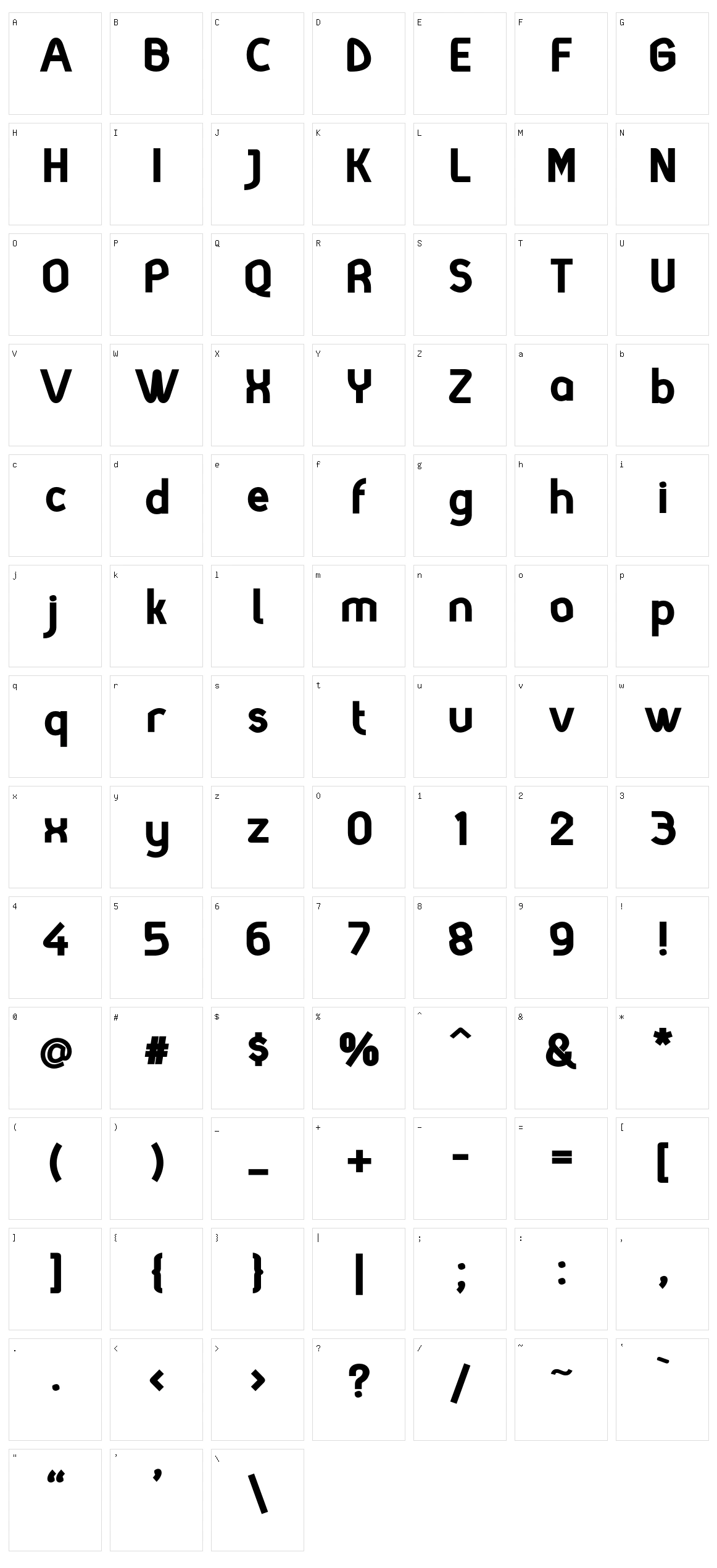
The Matondo Pro Family is a marvelous, elegantly designed font family.
This sans serif doubles as a display font, because of itâs unique shapes. The Matondo Pro font family is guaranteed to make your design stand out from the crowd, and leave a lasting impression.